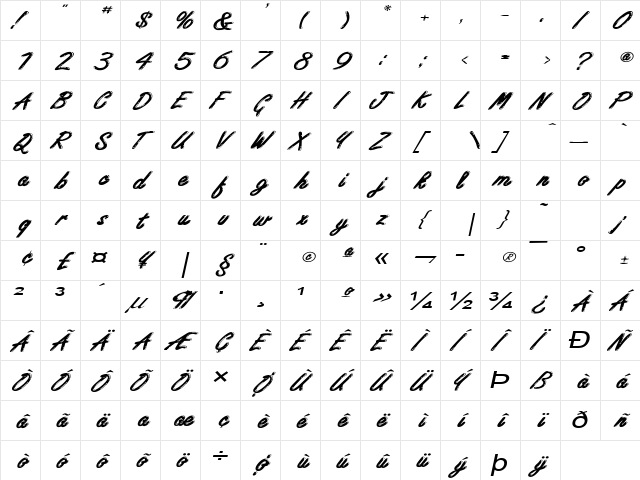
Encino Wide Italic
Design Context for Encino Wide Typeface
Encino Wide is a composed and adaptable typeface that performs quietly and consistently across a wide range of design contexts. Its italic angle brings a sense of urgency and motion to the letterforms.
Pro Tip: Try Encino Wide for annotation and caption copy alongside an upright companion — the contrast in angle creates a dynamic but ordered typographic system.